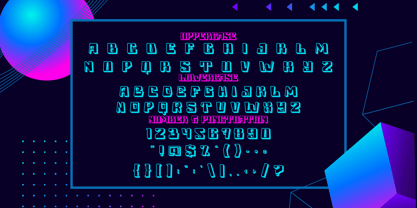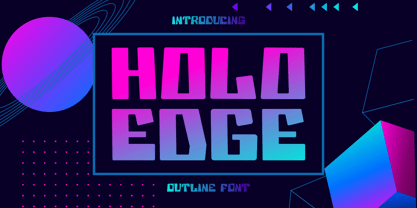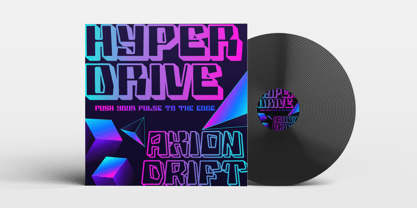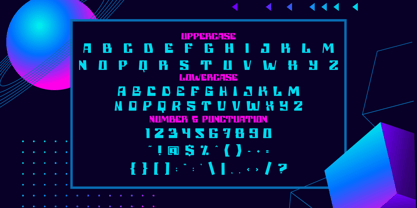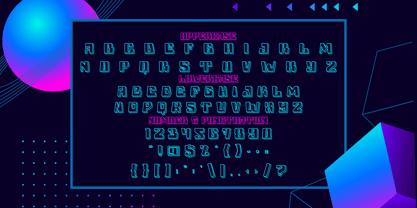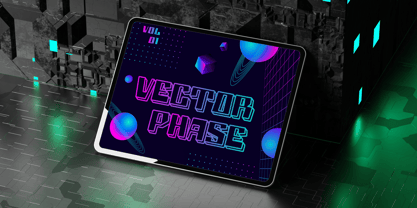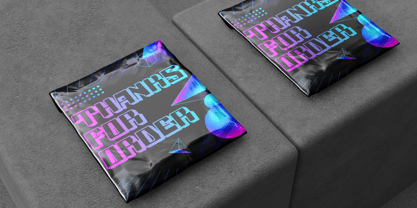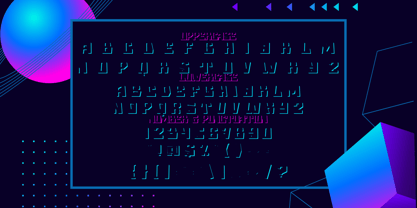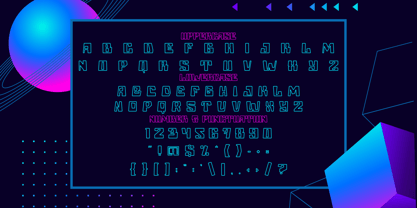
Holo Edge
La familia tipográfica Holo Edge fue diseñada por Yesie Erma Yunita y publicada por Shanaf. Holo Edge contiene 5 estilos y opciones de paquete familiar. Más información sobre esta familia
Holo Edge Outline Font is a modern display typeface built with strong geometric construction and confident proportions. Each letterform appears tall and bold, with solid outlines that define the shape clearly. The strokes feel consistent and balanced, giving the font a structured and technical character. Corners are firm and slightly angular, while curves remain controlled and precise. This balance creates a futuristic feel without becoming overly complex. The spacing between characters feels intentional, allowing words to breathe while staying compact. The outline style adds visual depth and presence, even without heavy fills. Every glyph feels sharp, stable, and engineered for clarity. This font communicates precision, strength, and modern aesthetics through form alone. From a stylistic standpoint, Holo Edge Outline Font fits cleanly into modern, tech-inspired, and digital-forward design spaces. It carries a contemporary tone that works well for logos, branding systems, headlines, posters, and advertising materials. The font also performs strongly in packaging, business identities, film titles, book covers, magazine layouts, stickers, and creative invitations. Designers can use it to build bold statements, futuristic themes, and professional visuals with confidence. Holo Edge Outline Font supports clear messaging while adding a distinctive edge to typography. It works especially well for brands that want to appear innovative, confident, and visually forward-thinking. With Holo Edge Outline Font, projects gain structure, personality, and a modern voice that stands out across digital and print applications.